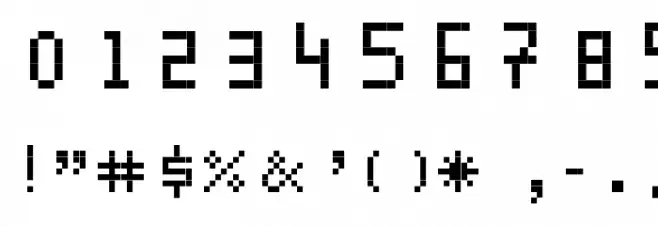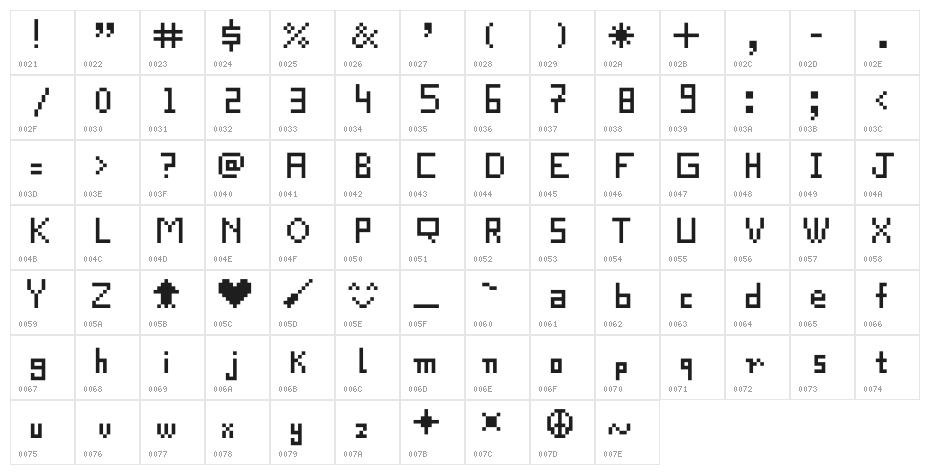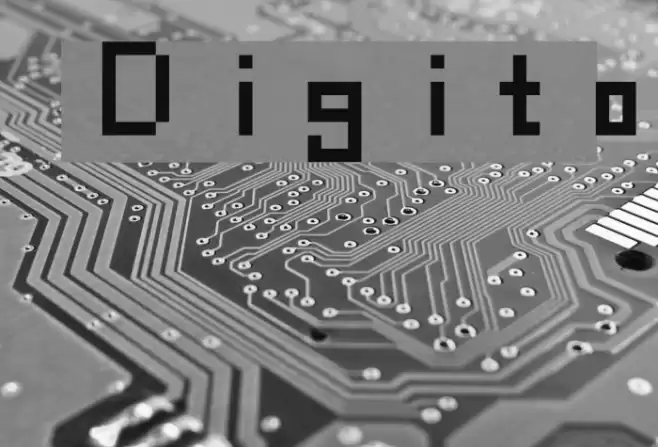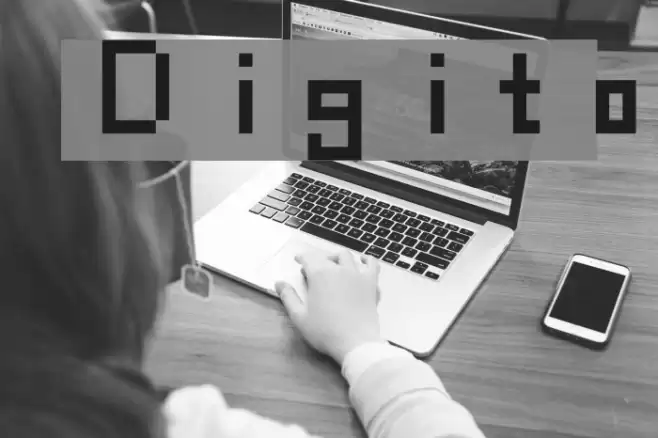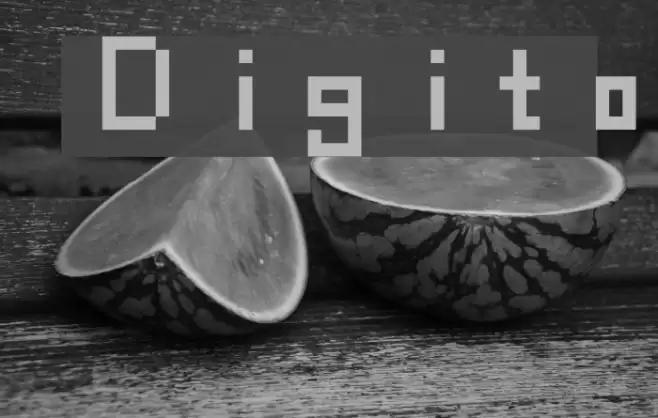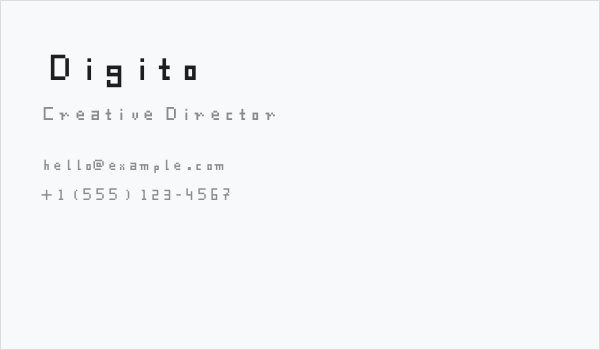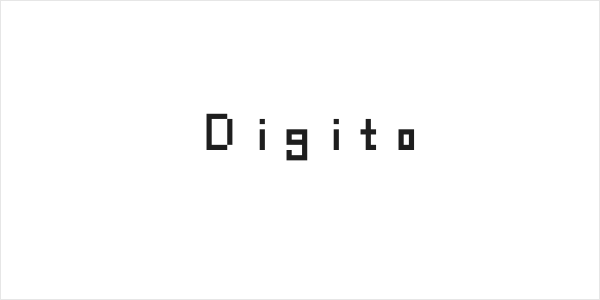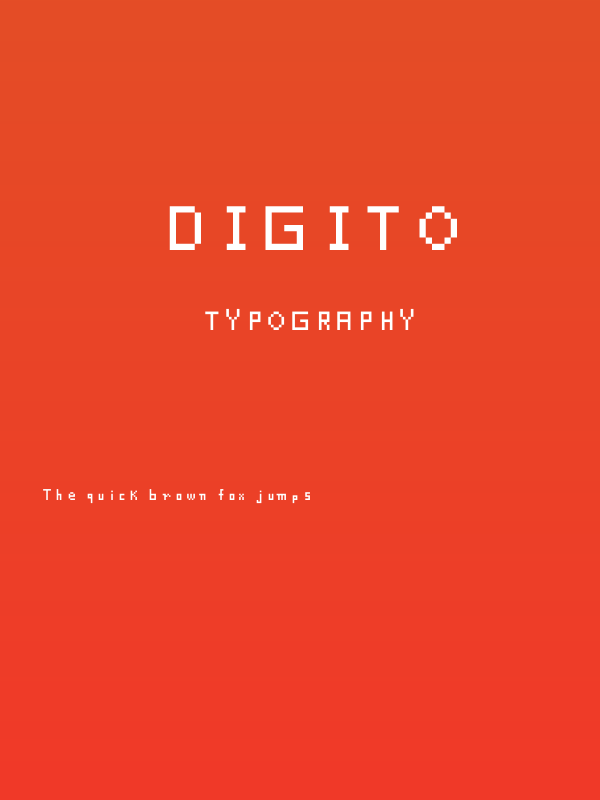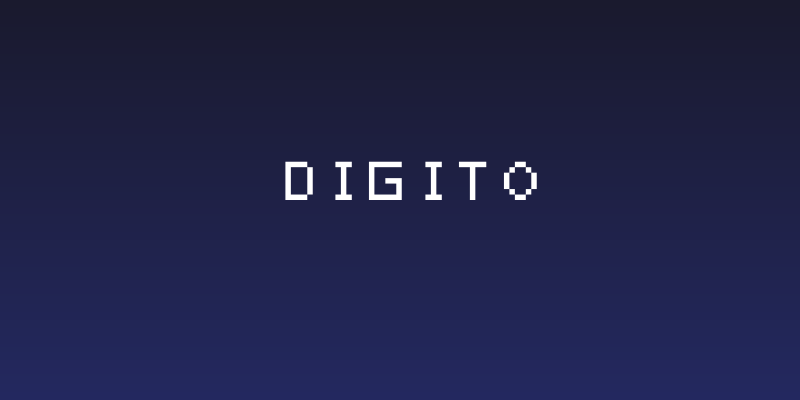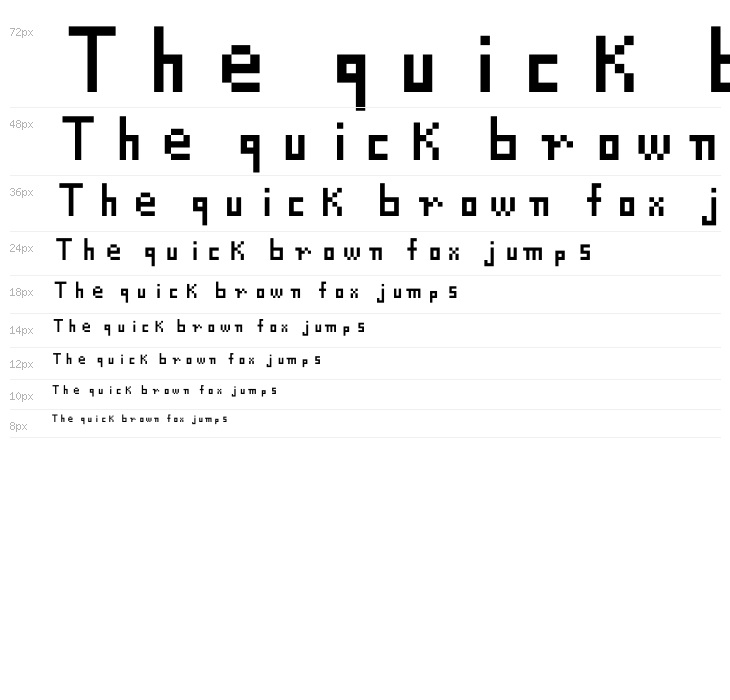
Digito Font
Digito Description
This font features a pixelated, blocky design reminiscent of classic digital displays and early computer graphics. Each character is constructed with a grid-like structure, giving it a distinctly retro and technological feel. The uppercase and lowercase letters maintain a consistent height and width, emphasizing uniformity and simplicity. Numbers and special characters follow the same pixelated style, ensuring a cohesive appearance across all glyphs. The font's geometric nature makes it highly legible at various sizes, though it is particularly striking in larger formats. Its nostalgic aesthetic is ideal for projects that aim to evoke a sense of vintage computing or digital minimalism.
| Proposed Projects | Ideal for video game design, tech-themed posters, retro websites, and digital art projects. |